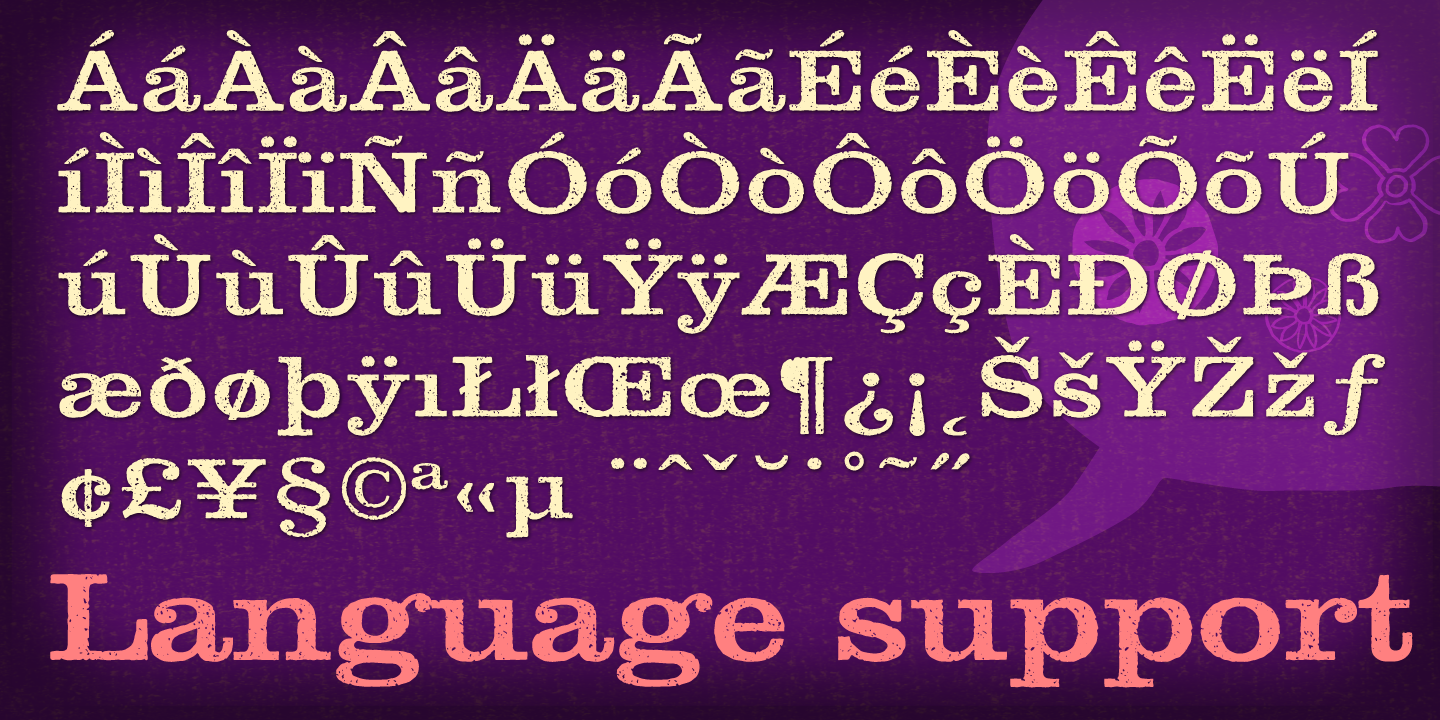
The Clarendon Rough Font is an excellent choice for designs that aim for a bold, classic, and authentically distressed aesthetic, blending timeless elegance with a rugged, worn-in feel. Imagine it gracing the signage of a vintage artisan workshop, adding a powerful visual punch to craft beer labels, or bringing a robust, weathered charm to heritage brand logos. It's also perfectly suited for energetic event posters, streetwear designs, independent film titles with a raw edge, and any project where you want to convey a sense of strength, individuality, and an unapologetic, unique voice. Its often sturdy forms, distinctive serifs, and assertive presence make it ideal for conveying confidence and a memorable statement.
What makes the Clarendon Rough Font so exciting is its ability to instantly infuse a design with a feeling of authenticity and a rich backstory. It frequently features subtle textures, imperfections, and a slightly weathered appearance that mimics old-school letterpress printing or hand-painted signs. This font has a powerful and self-assured personality that can instantly elevate your design, making it feel both established and remarkably artistic. It’s designed to capture attention with its distinctive charm, ensuring your message is not just seen, but resonates with a sense of enduring strength and authentic character.
The Clarendon Rough Font family typically includes a range of weights, from a solid regular to a heavy, commanding bold, providing versatile options for different levels of emphasis. Some families might also offer stylistic alternates or unique ligatures that enhance its traditional or rugged aesthetic. These variations empower designers to create a truly commanding and memorable display, ensuring the Clarendon Rough Font Free Download can adapt to a wide array of projects while maintaining its signature, timeless charm.